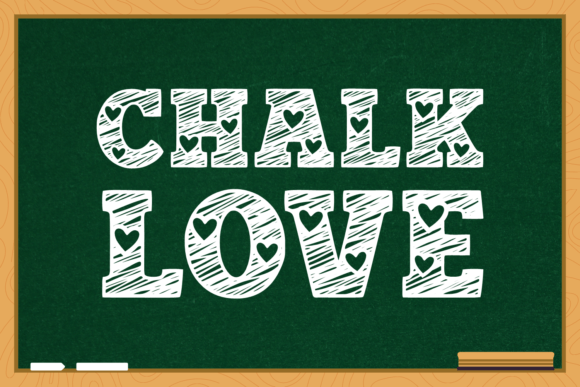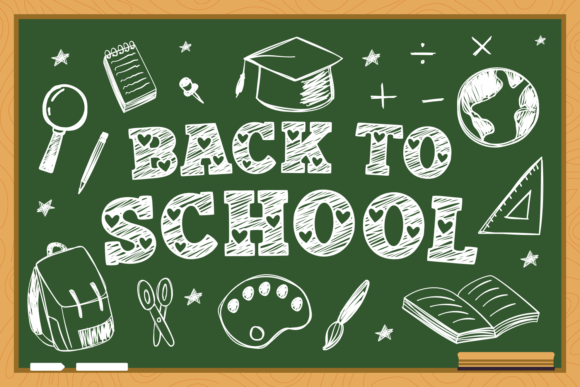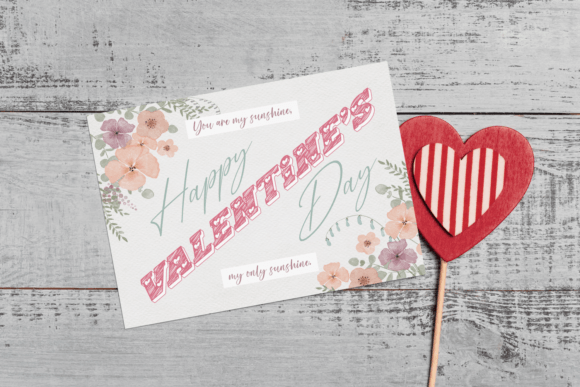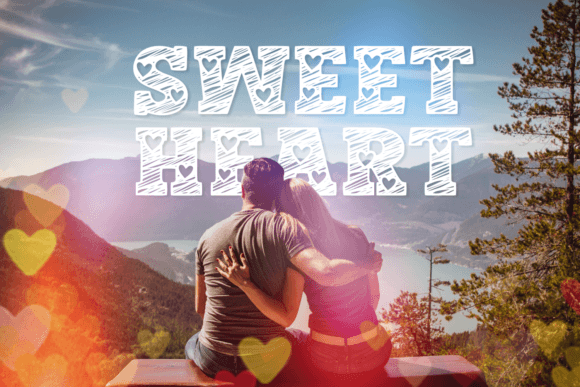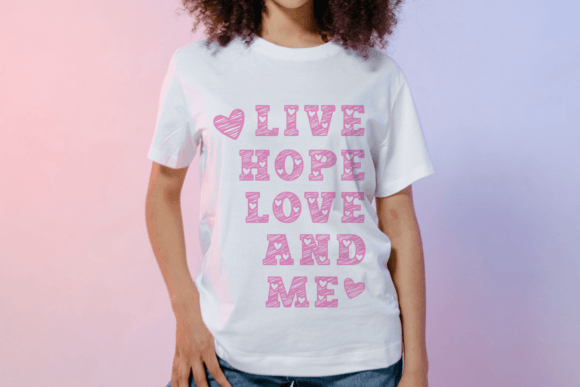
Introducing Chalk Love – a charmingly decorative typeface that radiates warmth, affection, and creativity. With its hand-sketched style, this font beautifully mimics the nostalgic charm of chalkboard art, instantly evoking heartfelt memories. Blending a retro-vintage vibe with a playful elegance, Chalk Love is perfect for teachers adding flair to classroom materials, students personalizing their ‘Back to School’ projects, or anyone designing heartfelt Valentine’s Day cards. Versatile and inspiring, this font invites endless creative expression. Let your words come alive with the nostalgic magic of Chalk Love.